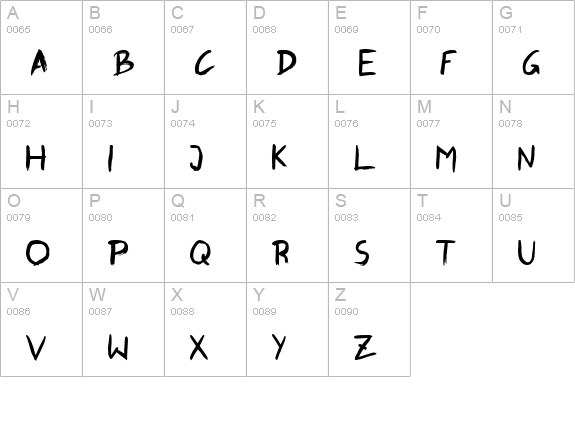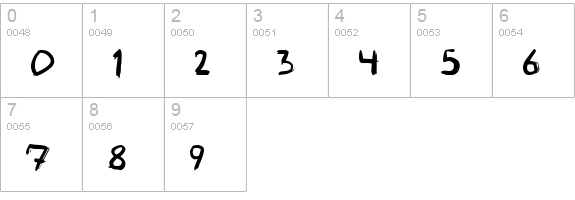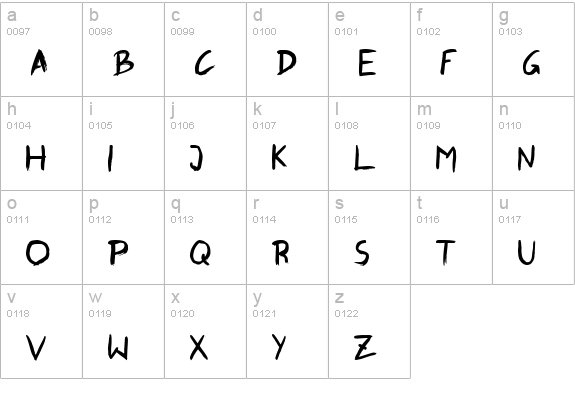
GraffitiPaintBrush Font Details
Introducing GraffitiPaintBrush font, a creatively designed typeface that brings the urban art of graffiti to life. This unique and edgy font captures the essence of street art with its bold strokes and expressive letterforms. Each character is meticulously crafted to emulate the dynamic and rebellious nature of graffiti, making it perfect for contemporary design projects that require a touch of urban grit. With GraffitiPaintBrush font, you can unleash your creativity and add a splash of urban style to your designs. Whether you're creating eye-catching posters, captivating social media graphics, or edgy album covers, this font will make your artwork stand out from the crowd. Its versatile nature allows it to be used for a wide range of design purposes, from branding and advertising to editorial and packaging. And the best part? GraffitiPaintBrush font is absolutely free! It is available for download exclusively at FontsMarket.com, a trusted online platform for high-quality fonts. Now you can enjoy the freedom of using this remarkable font without any cost or restrictions. Simply visit FontsMarket.com, download the font, and start incorporating the urban energy of graffiti into your designs. In addition to its distinctive style, GraffitiPaintBrush font also offers a wide range of characters, including uppercase letters, lowercase letters, numbers, punctuation marks, and special symbols. This comprehensive character set ensures that you have all the tools you need to create captivating and authentic graffiti-inspired designs. So why wait? Download GraffitiPaintBrush font today and let your imagination run wild. Embrace the urban art form of graffiti and infuse your designs with its raw energy and rebellious spirit. With this free and versatile font, the possibilities are endless. Get ready to make a bold statement and leave your mark in the design world.